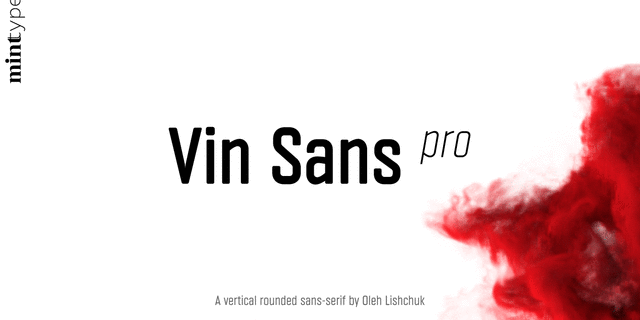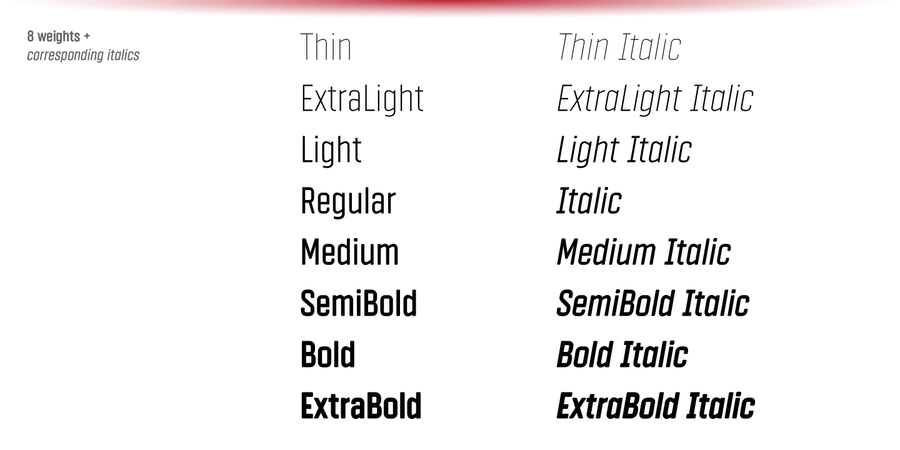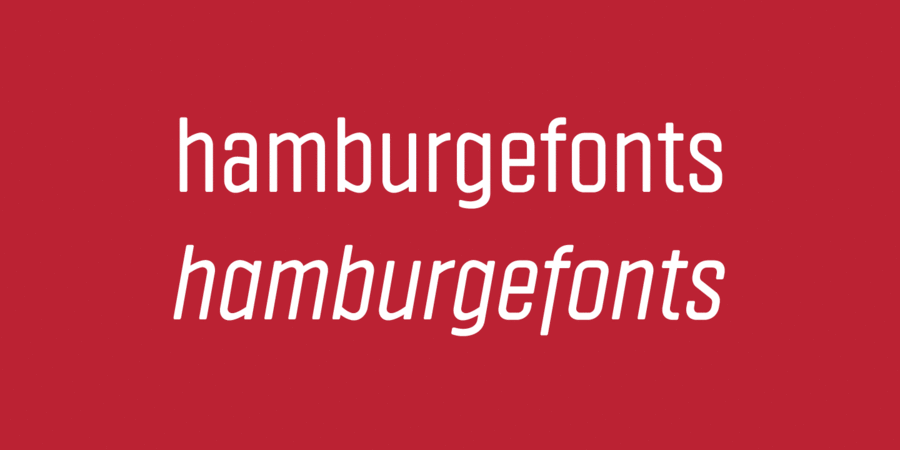
About Vin Sans Pro is a quite narrow rigid sans-serif typeface with extra-large x-height and rounded corners. It is perfect for any kind of short copy with lots of attention guaranteed. Vin (translated from Ukrainian as “he”) is a superfamily consisting of three robust typefaces with pronounced vertical stems and rounded corners. All three typefaces feature very large x-height for even more expression and assertiveness. Be sure to check other two typefaces of Vin superfamily: Vin Slab Pro and Vin Mono Pro. The typeface was designed by Oleh Lishchuk at Mint Type foundry in 2018.
neon, accurate, futuristic, flat, rectangular, thin, static, logical, cold, easy, urban, modern, engineering, urbanistic, schematic, glass, fragile, transparent, calm, wire, stable, automatic, technogenic, solid, crisp, machine, space, close-fitting, compressed, serious, practical, pragmatic, technically, high-quality, robust, reliable, self-assured, convincing, authoritative, responsible, loud, important, persistent, game, strong, industrial, tough, ambitious, severe, heavy, steel, iron, hot, monumental
sci-fi, gadget, device, scheme, architecture, engineer, city, electronics, science, IT specialist, IT, technology, space, constructor, automation, urban studies, design, equipment, game, car, Shooter, action, cinema, football, lego, toy, sport, industry, machine tool, tool, power station, energy industry, factory, fitness equipment, repairs, blockbuster, thriller, selfie, fuel, oil Typeface associated with age: